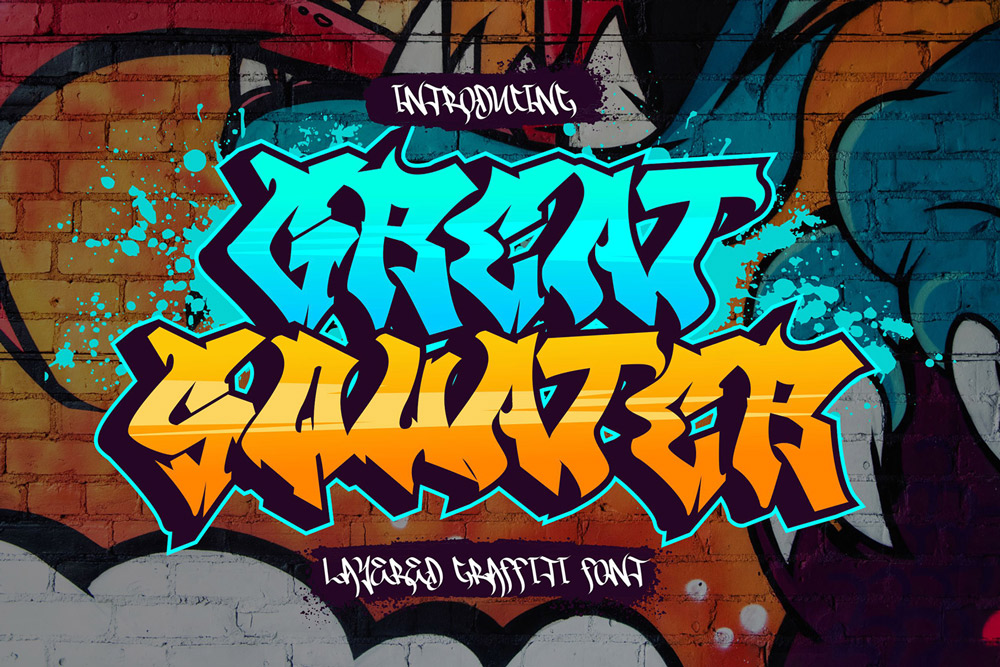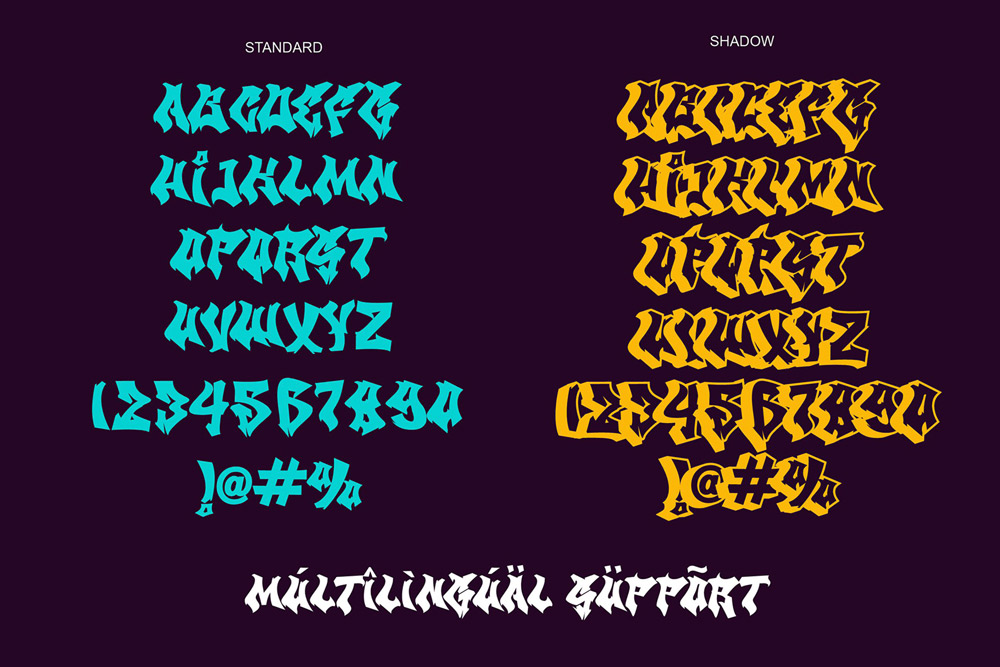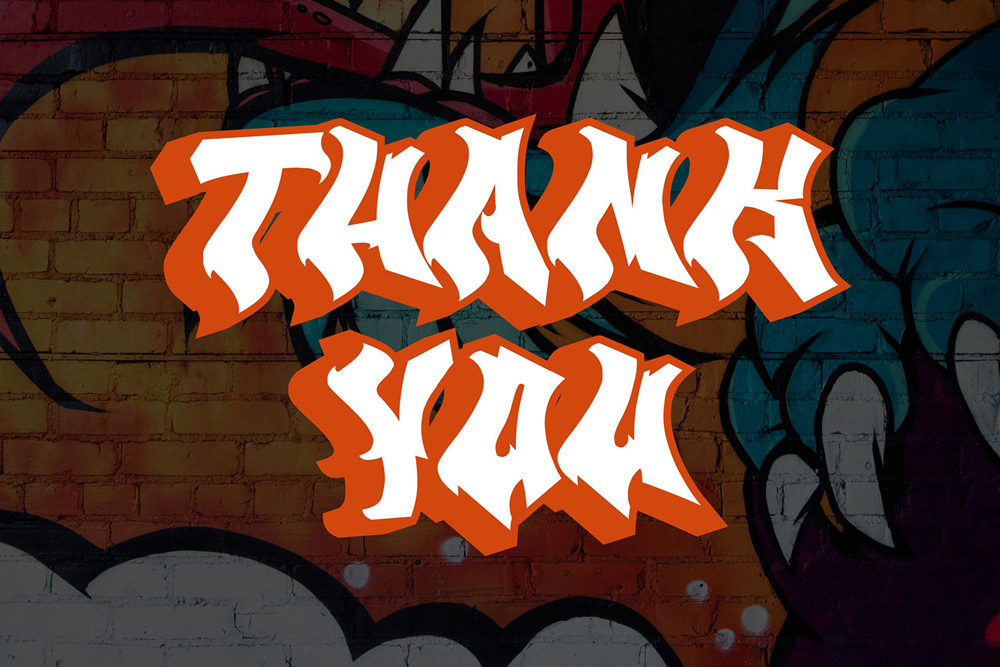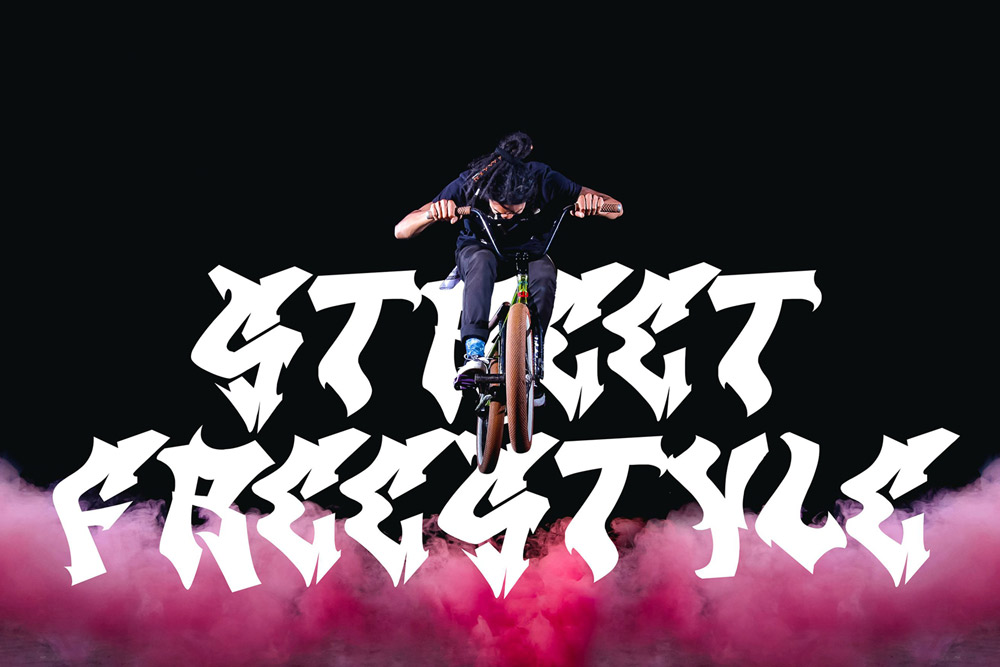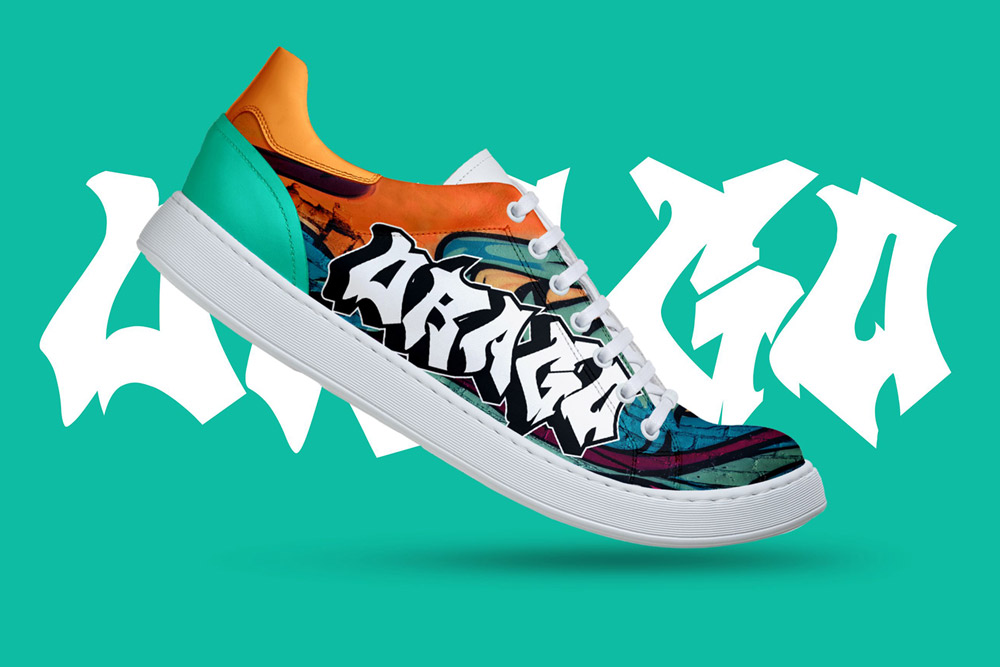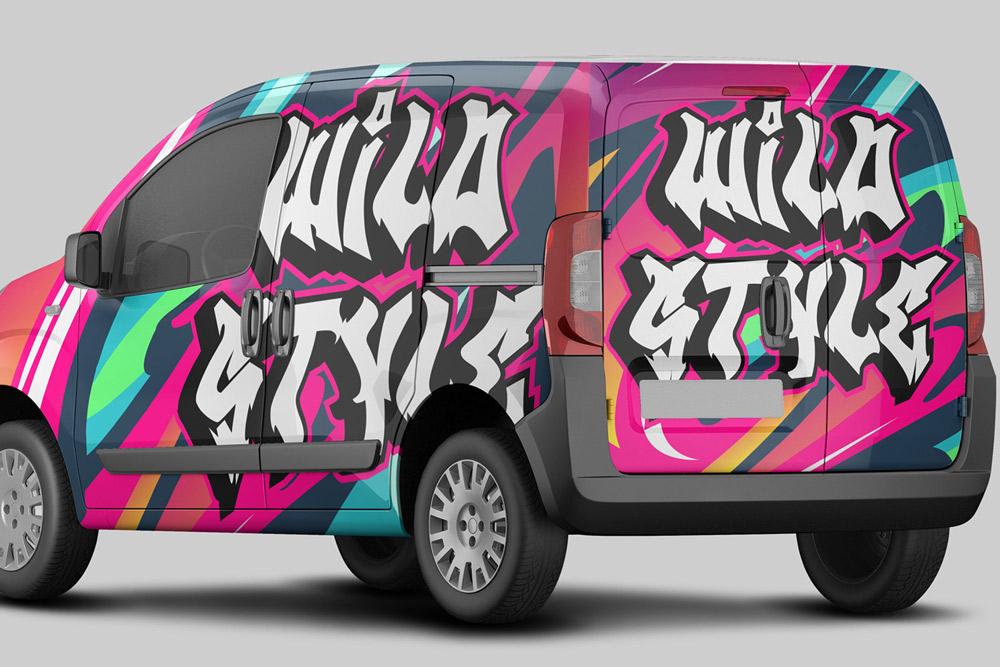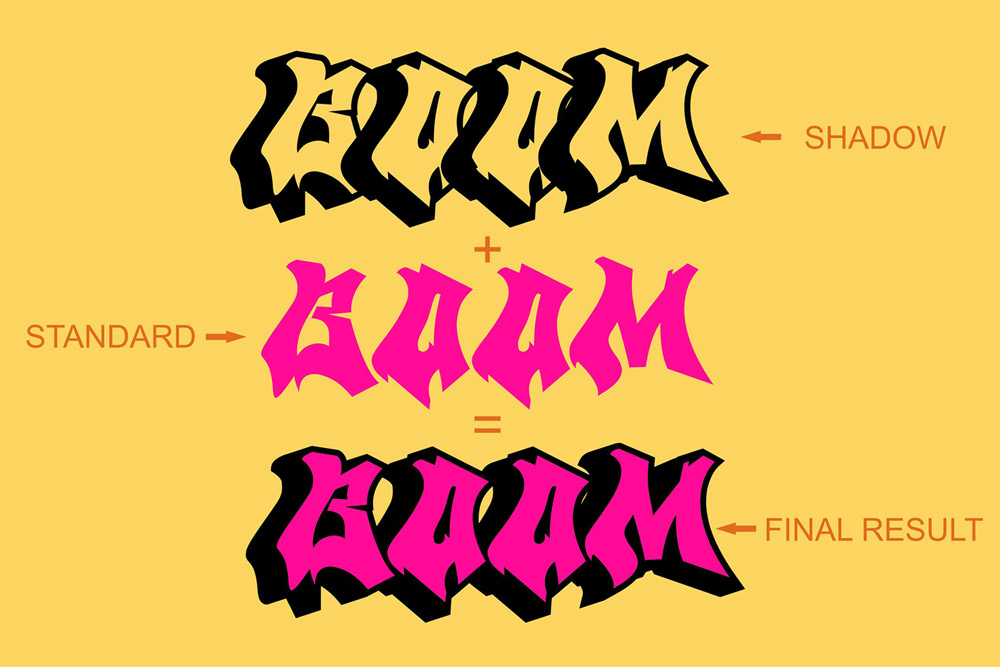
Great Squater – Wild and Shadowed Graffiti Font
Great Squater is a wild graffiti font inspired by authentic street art culture, underground urban lettering, bold wildstyle graffiti, and aggressive shadow typography aesthetics. Designed with expressive letterforms and layered shadow effects, this urban display font delivers powerful visual energy for modern creative projects. Whether you are building a streetwear brand, designing music artwork, creating gaming graphics, or developing social media campaigns, Great Squater provides the edgy graffiti typography needed to make your designs stand out.
This shadowed graffiti font combines modern urban lettering with dynamic wildstyle inspiration, creating a strong visual identity that feels energetic, rebellious, and contemporary. The bold structure and shadow effect add depth and movement to every letterform, making this graffiti display font ideal for attention-grabbing headlines, posters, merchandise, and branding systems.
Great Squater is carefully designed for creators who want authentic urban typography with professional quality. The wild graffiti style creates a raw street aesthetic while maintaining readability for both print and digital applications. From esports branding and rap album covers to apparel graphics and promotional posters, this modern graffiti font delivers high visual impact across multiple creative industries.
Wild Graffiti Font Style
Great Squater features expressive wildstyle graffiti lettering inspired by street murals, spray paint tags, underground wall art, and modern urban typography trends. The energetic letterforms create a strong street-inspired identity.
Layered Shadow Effect
This shadowed graffiti font includes bold layered shadow styling that adds depth, movement, and dramatic visual impact to typography compositions.
Uppercase Characters
Great Squater includes complete uppercase characters carefully crafted with edgy urban details and strong graffiti personality.
Multilingual Support
This urban graffiti font supports multilingual characters, making it suitable for international branding projects, posters, merchandise, and social media graphics.
Number and Punctuation
Great Squater includes complete numbers and punctuation marks for flexible typography layouts across digital and print media.
Why Designers Love Great Squater
Authentic Wildstyle Graffiti Energy
Designers love Great Squater because it captures the authentic energy of wildstyle graffiti while maintaining clean professional typography structure. The layered shadow effect enhances the urban street aesthetic.
Perfect for Streetwear Branding
Great Squater is ideal for streetwear logos, urban apparel collections, sneaker campaigns, skateboard graphics, and youth fashion branding. The bold graffiti style instantly creates strong street culture identity.
Excellent for Music and Gaming Graphics
This shadowed graffiti font works perfectly for hip hop album covers, rap music posters, gaming logos, esports banners, Twitch graphics, and YouTube thumbnails. Its layered typography style creates powerful visual impact.
High Attention on Social Media
Content creators and digital marketers use Great Squater to create eye-catching Instagram posts, TikTok graphics, promotional banners, and viral social media content because the typography stands out instantly.
Flexible for Print and Digital Projects
Whether used on posters, merchandise, packaging, branding systems, or digital campaigns, Great Squater maintains strong readability and bold urban personality.
Perfect For
Great Squater is perfect for:
- Streetwear branding
- Graffiti logo design
- Urban merchandise
- Hip hop posters
- Rap album covers
- Gaming typography
- Esports branding
- YouTube thumbnails
- Social media graphics
- Skateboard artwork
- Urban fashion campaigns
- Music event flyers
- Promotional graphics
- Modern apparel design
- Creative typography projects
- Underground branding
- Digital advertising
- Festival posters
- Youth culture visuals
- Street-inspired artwork
Wild Graffiti Typography for Modern Branding
Modern branding trends increasingly embrace graffiti typography and bold urban visuals because they communicate creativity, authenticity, rebellion, and youthful energy. Great Squater is designed specifically for these modern creative trends by combining wild graffiti aesthetics with layered shadow typography.
The dramatic shadow effect helps headlines and branding visuals feel more dynamic and visually powerful. This modern graffiti font is especially effective for oversized typography layouts, poster headlines, apparel branding, and attention-grabbing promotional graphics.